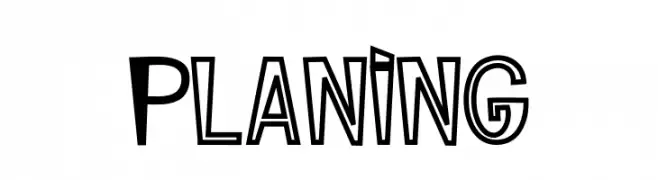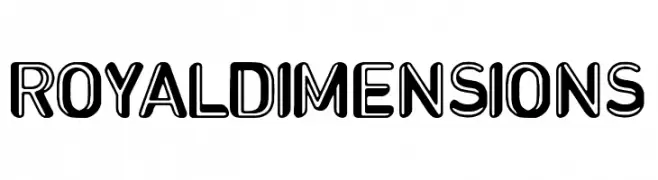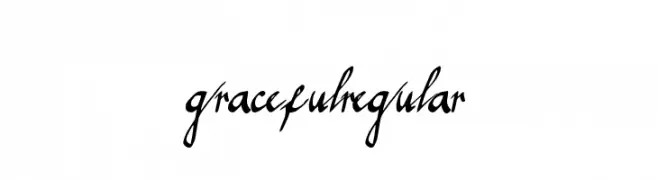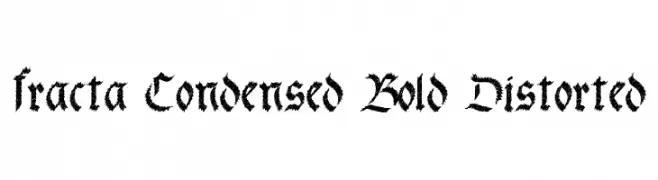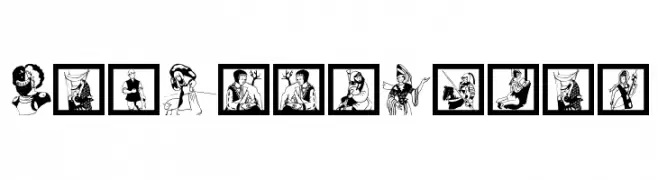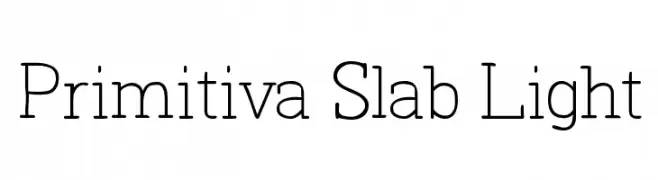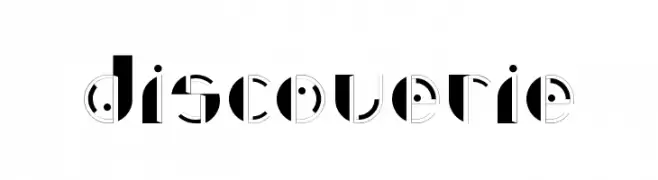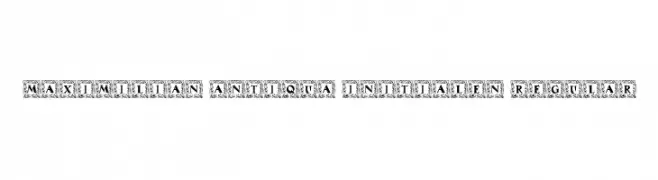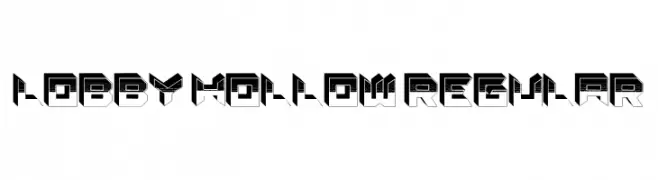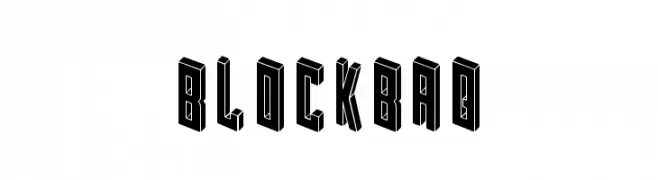
A playful, hand-drawn script font with whimsical loops and elegant flow.
A playful, bold font with a hand-drawn, artistic style.
A bold, geometric font with sharp angles and a futuristic style.
A decorative font of starburst and celestial symbols.
A bold, outlined font with a modern, three-dimensional appearance.
An elegant, cursive font with decorative loops and swirls.
A bold, condensed, and distorted decorative font with a jagged, thorn-like texture.
Medieval-themed illustrative font with each character as a unique scene.
A modern, light slab serif font with clean, geometric lines.
A bold, 3D decorative font with sharp edges and a shadow effect.
Ornate serif capitals with intricate borders, exuding a vintage elegance.
A decorative font with bold, geometric shapes and an ancient, mystical style.
A bold, geometric font with a hollow, dotted interior and a 3D effect.
A bold, three-dimensional block font with a modern, edgy style.
A bold, modern, and condensed font with a futuristic aesthetic.
A sketch-style, condensed italic font with a 3D outline effect.
A bold, dynamic italic font with strong, thick strokes and a sense of movement.
A playful, hand-drawn font with rounded edges and a whimsical style.
A bold, modern font with a playful and artistic design.
An elegant, flowing script font with a sophisticated, handwritten style.
A playful, hand-drawn font with a whimsical and dynamic style.
A bold, modern sans-serif font with a clean and uniform design.
A modern, geometric sans-serif font with clean lines and balanced proportions.
A decorative and whimsical font with ornate, playful details.
Abstract, surreal, and decorative font with organic, chaotic shapes.
A bold, playful handwritten font with fluid strokes and a whimsical style.
A bold, geometric font with slab serifs and a modern classic style.
A playful, bold script font with smooth, rounded edges and a dynamic slant.
A bold, hand-drawn font with a textured, energetic style.